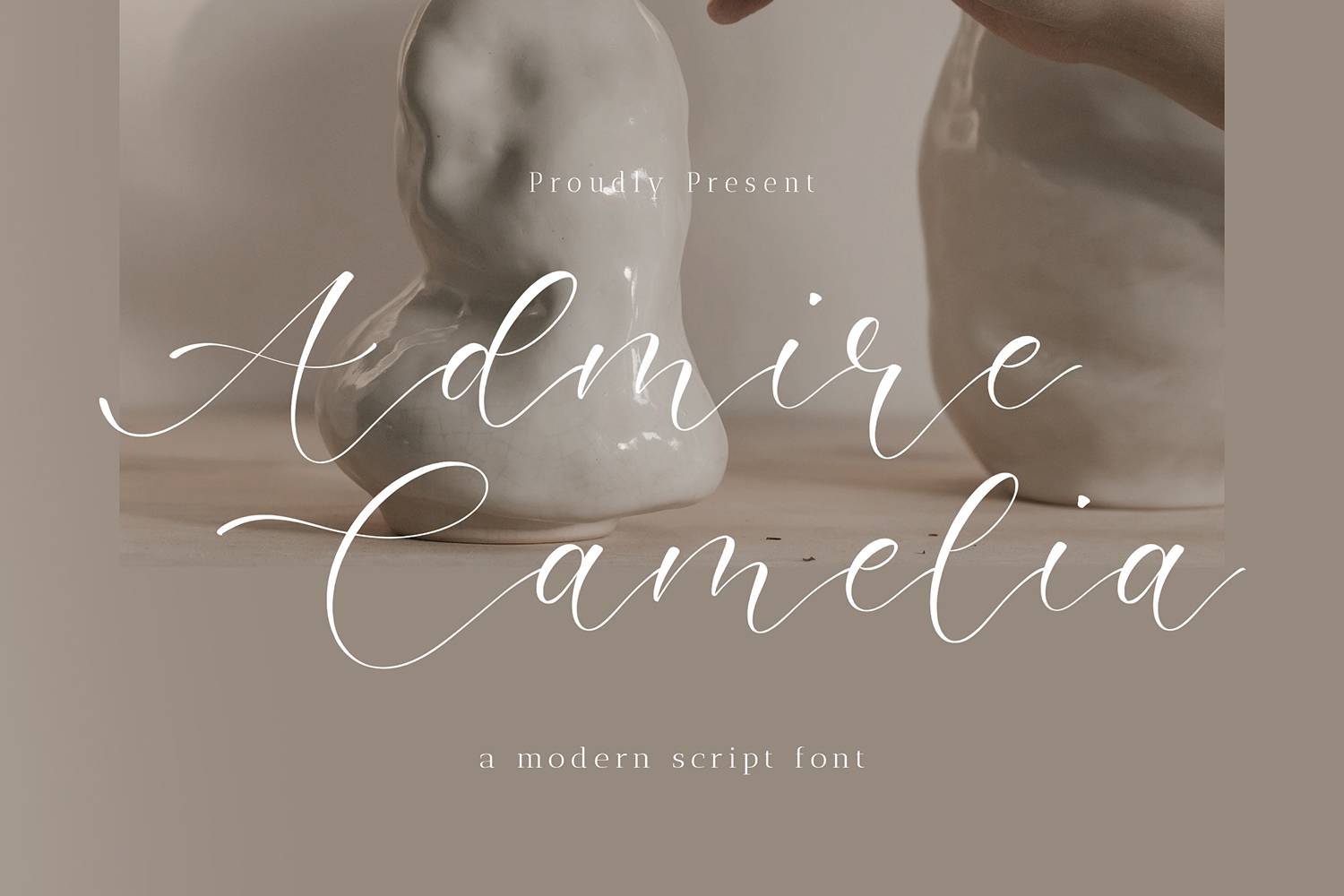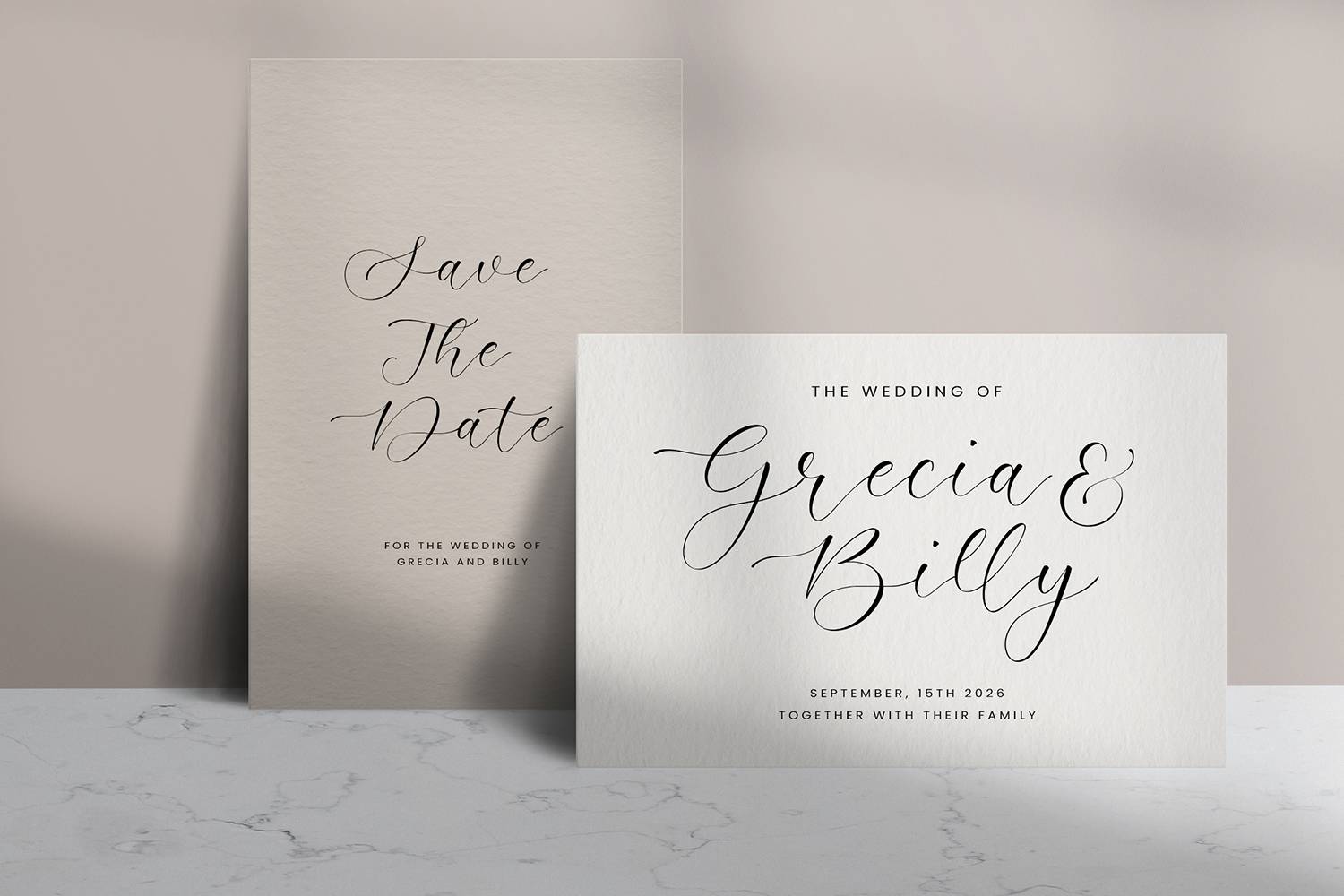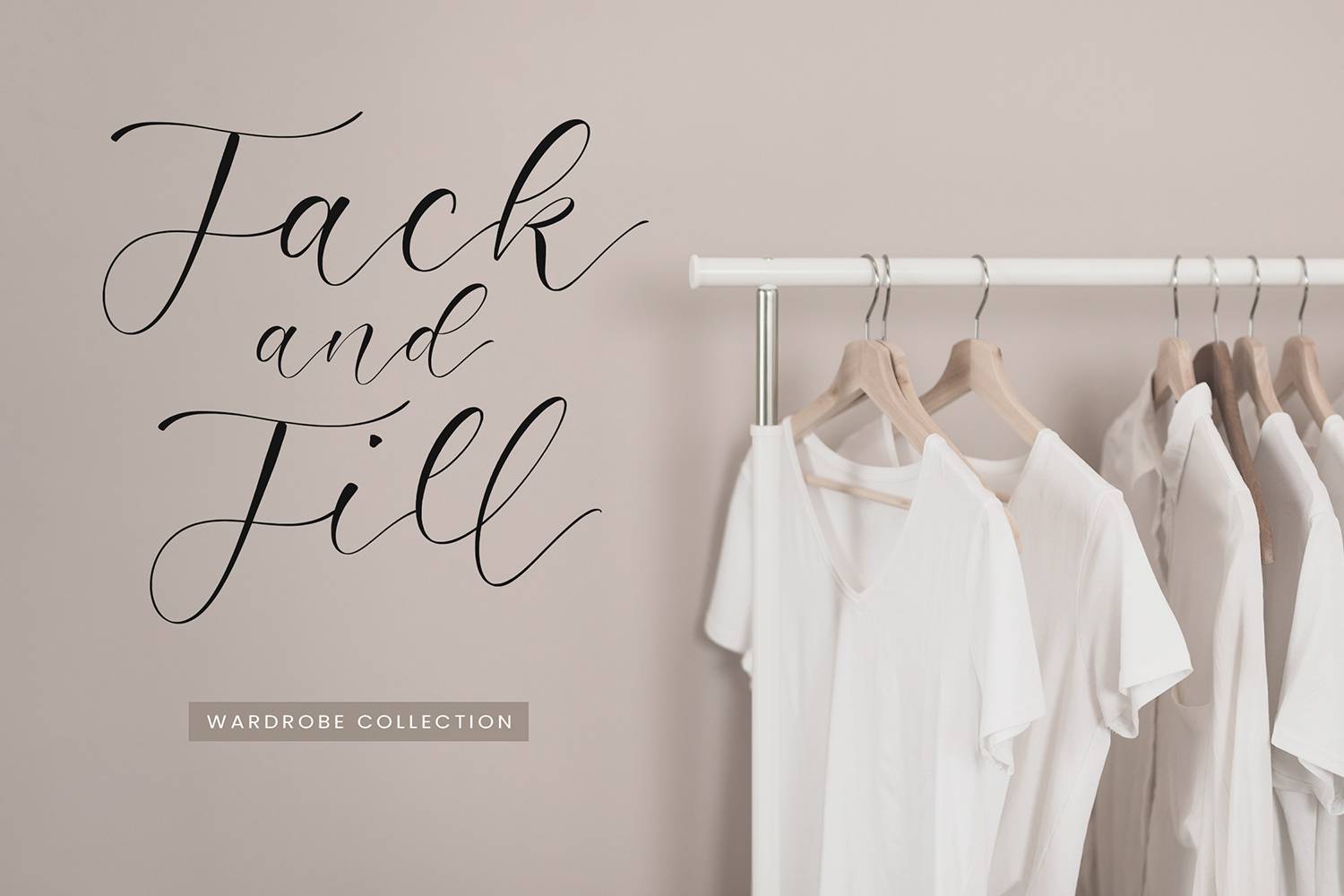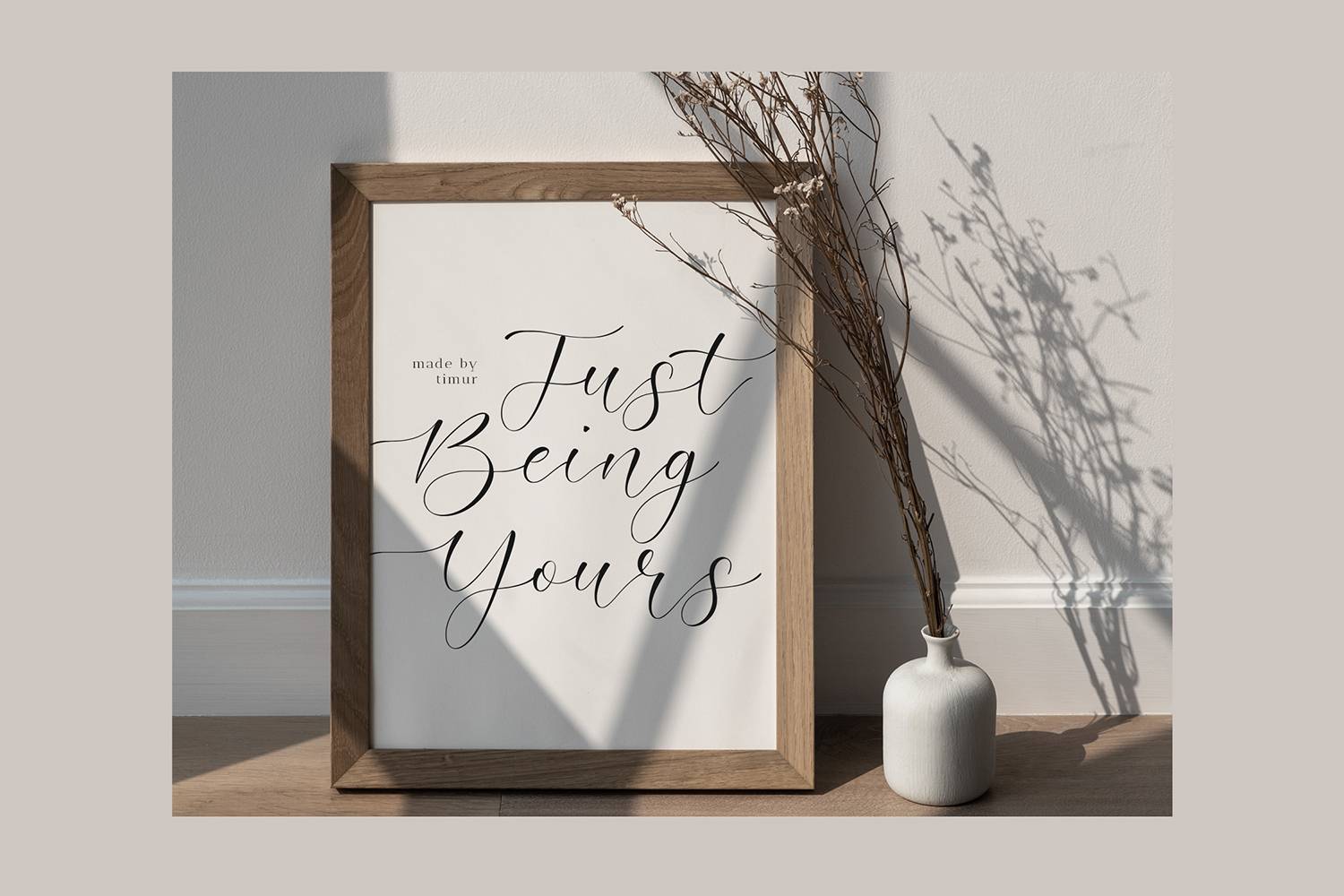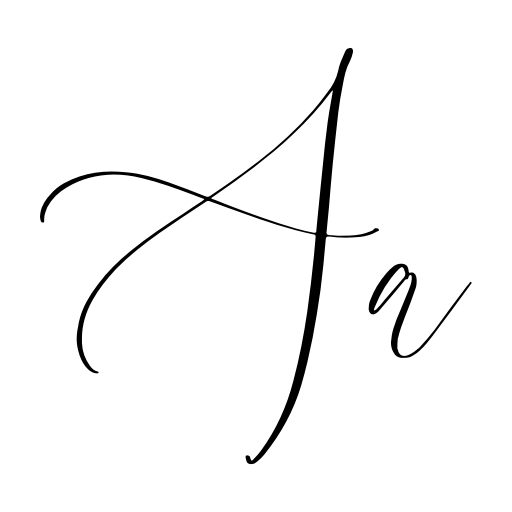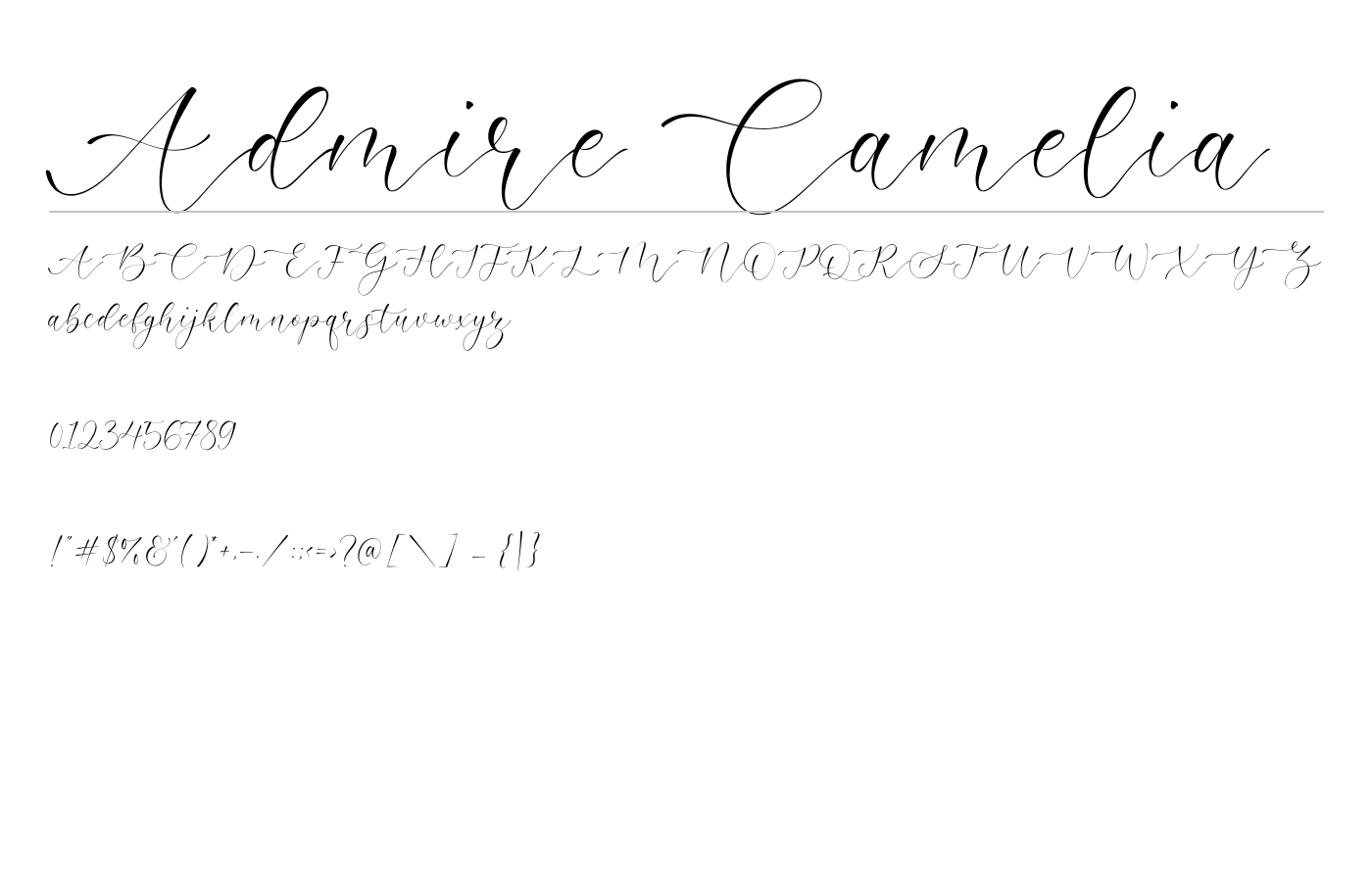
Admire Camelia is an elegant, thin script font that combines delicate, flowing strokes with refined calligraphic flair. Its high contrast and graceful letterforms make it perfect for luxury branding, wedding invitations, and stylish editorial projects that seek a sophisticated, feminine touch. This font shines in large, decorative uses where its intricate details and airy feel can truly stand out.
Admire Camelia Font